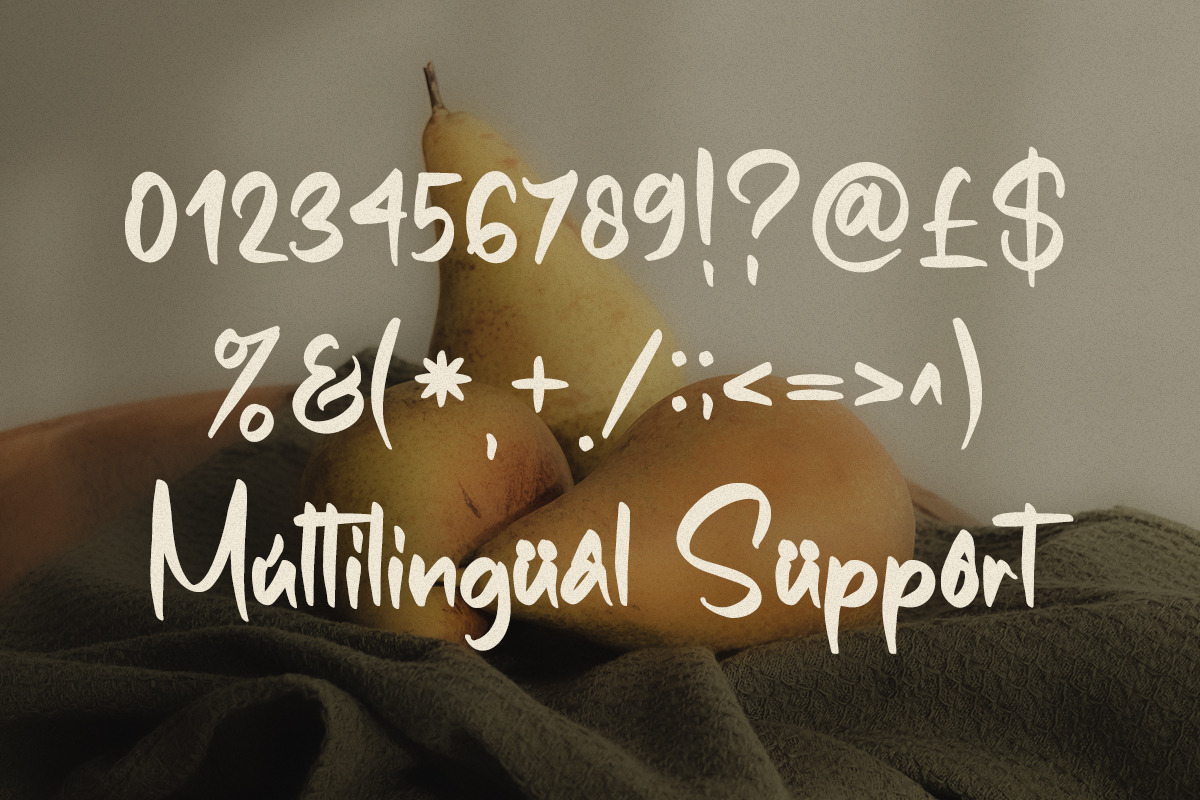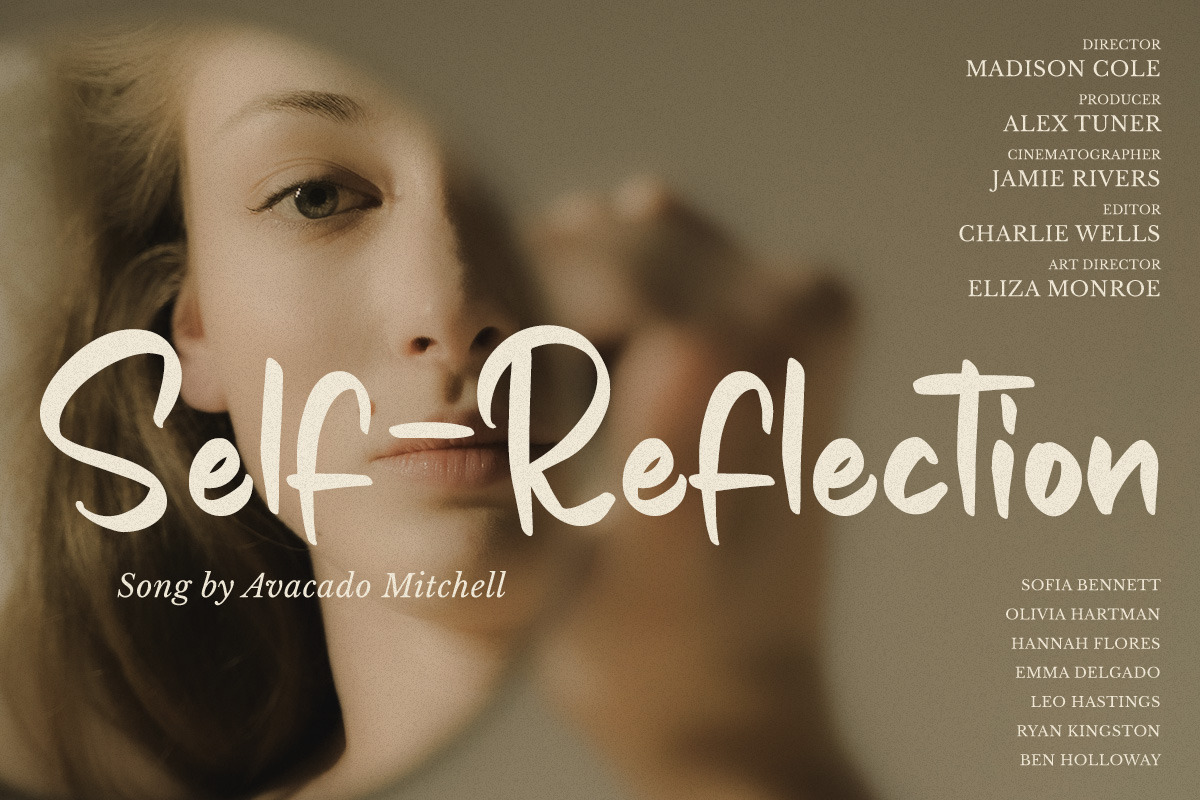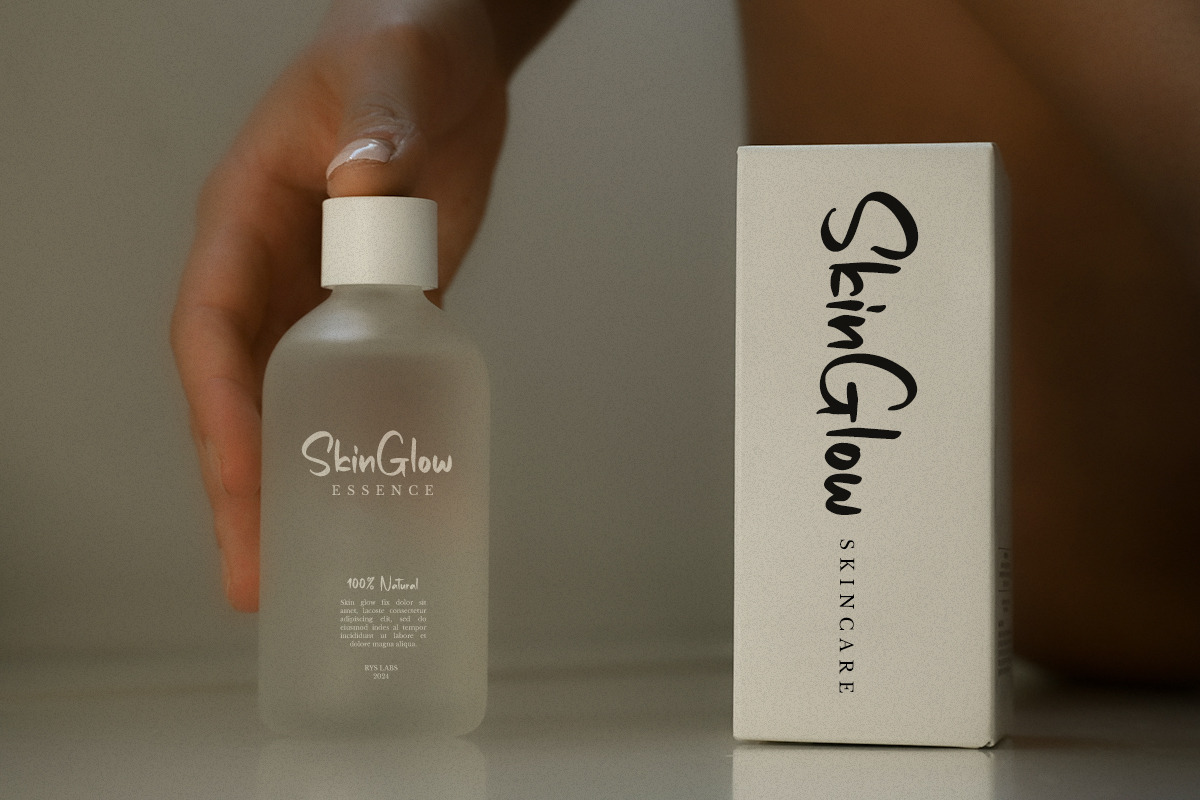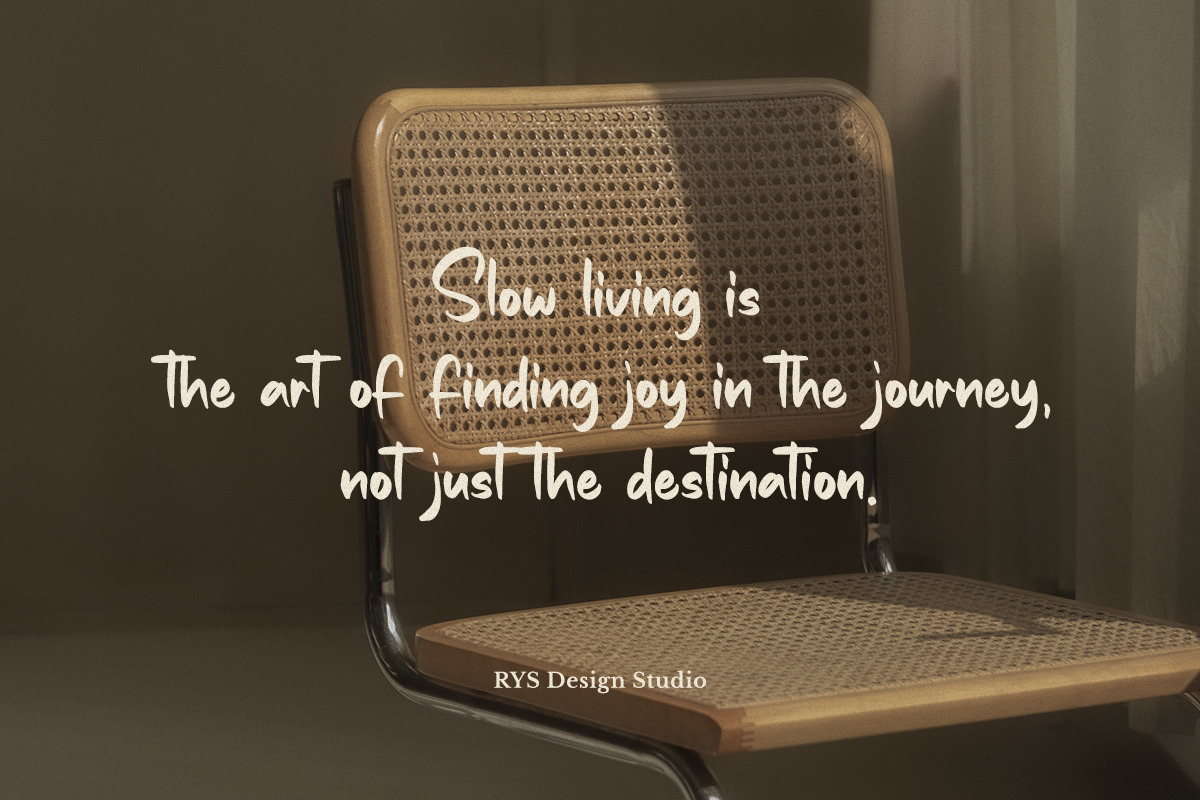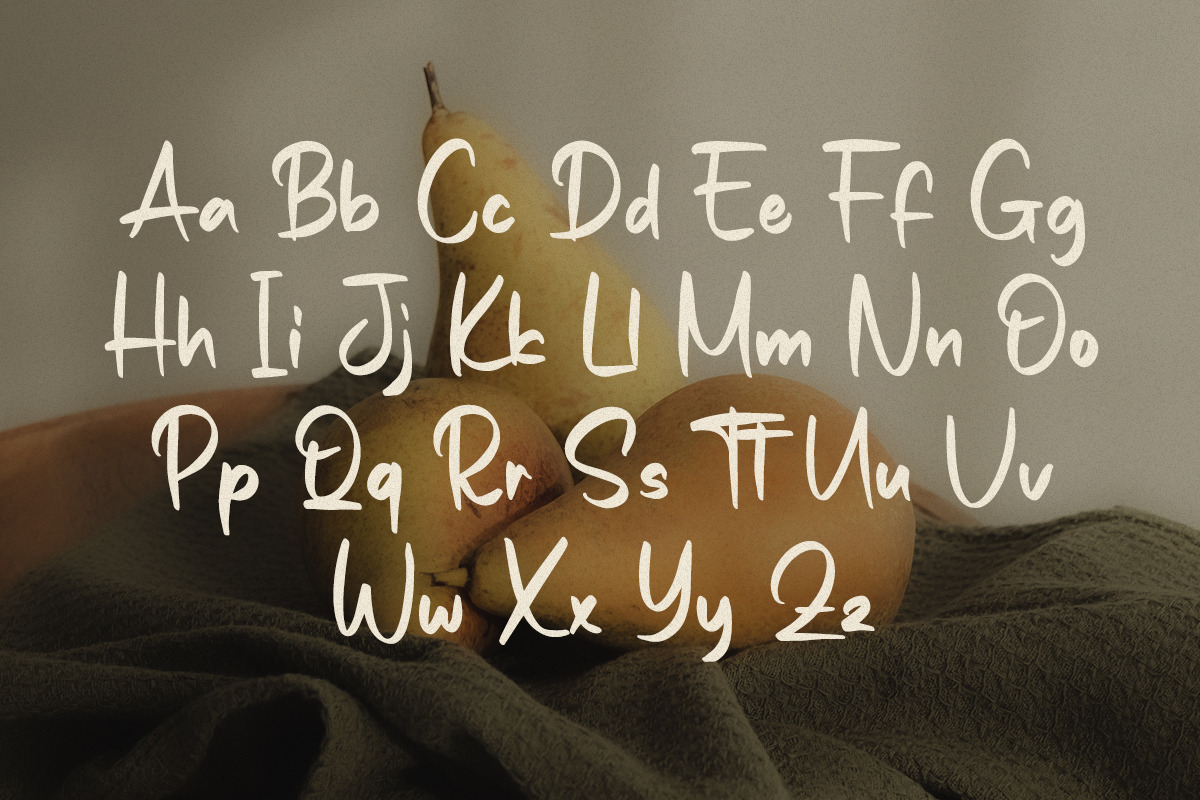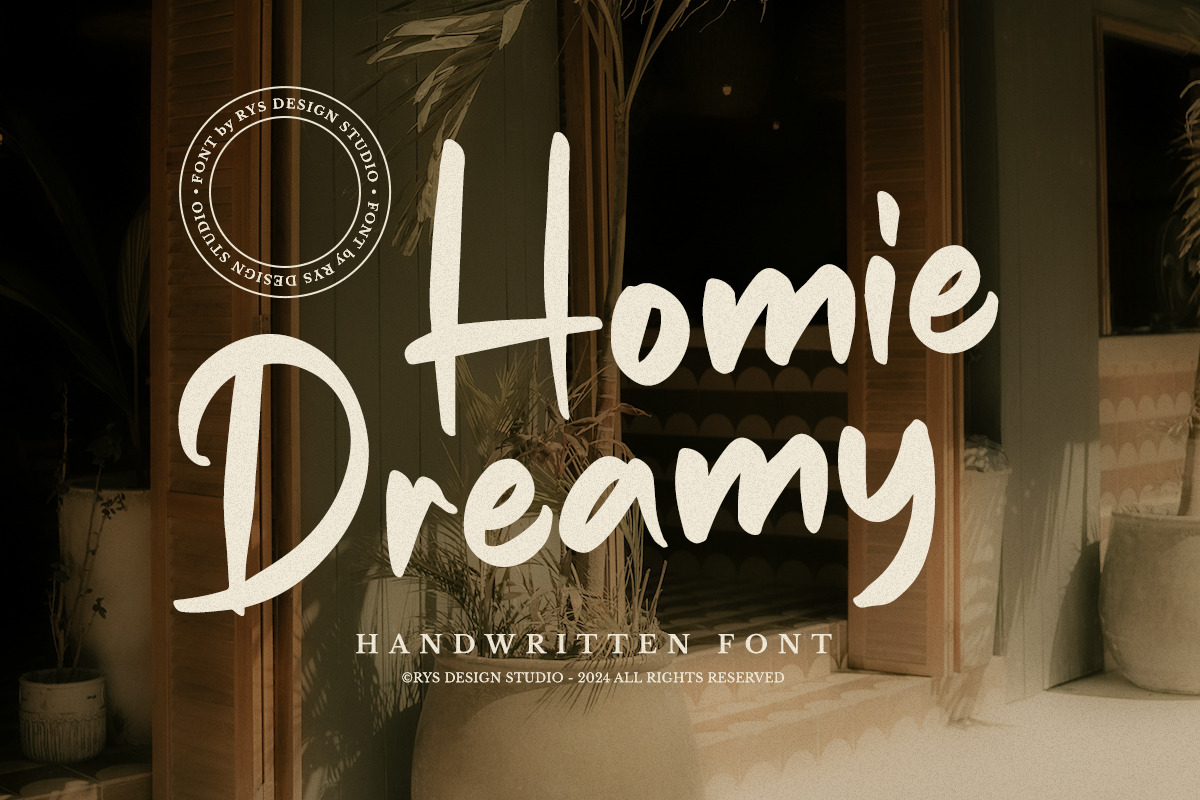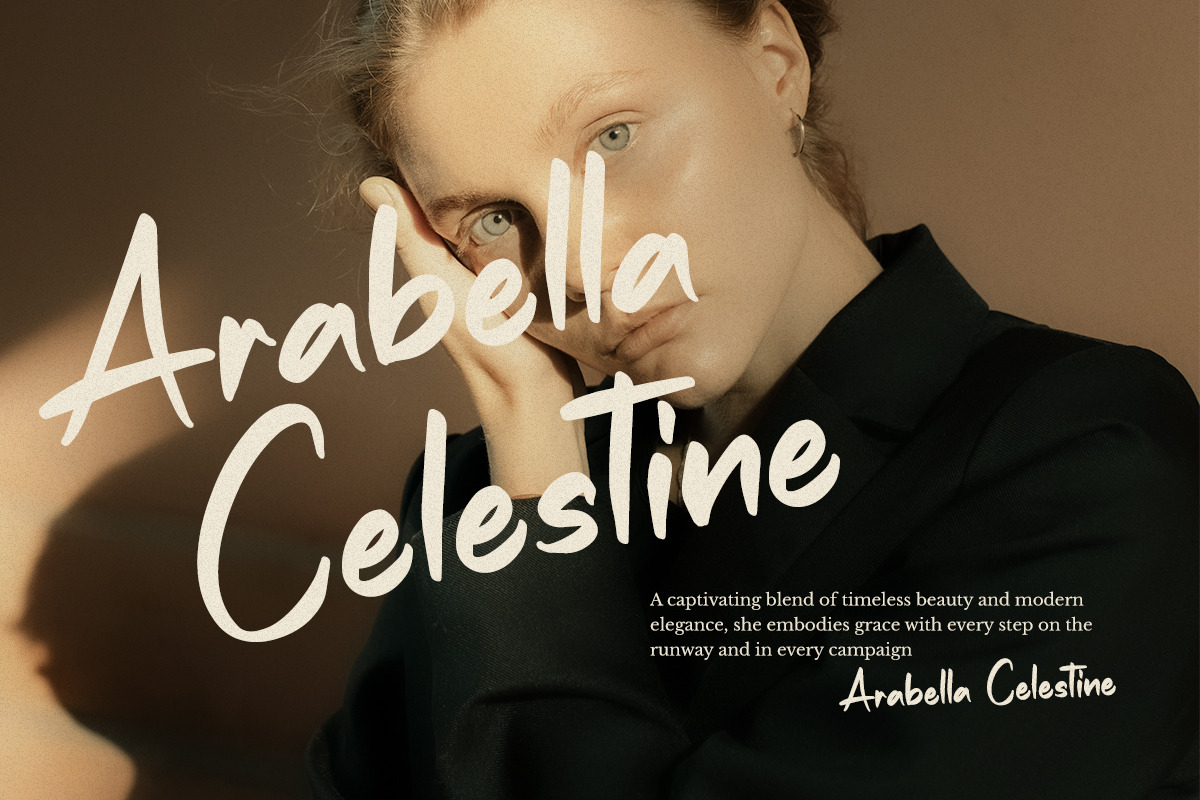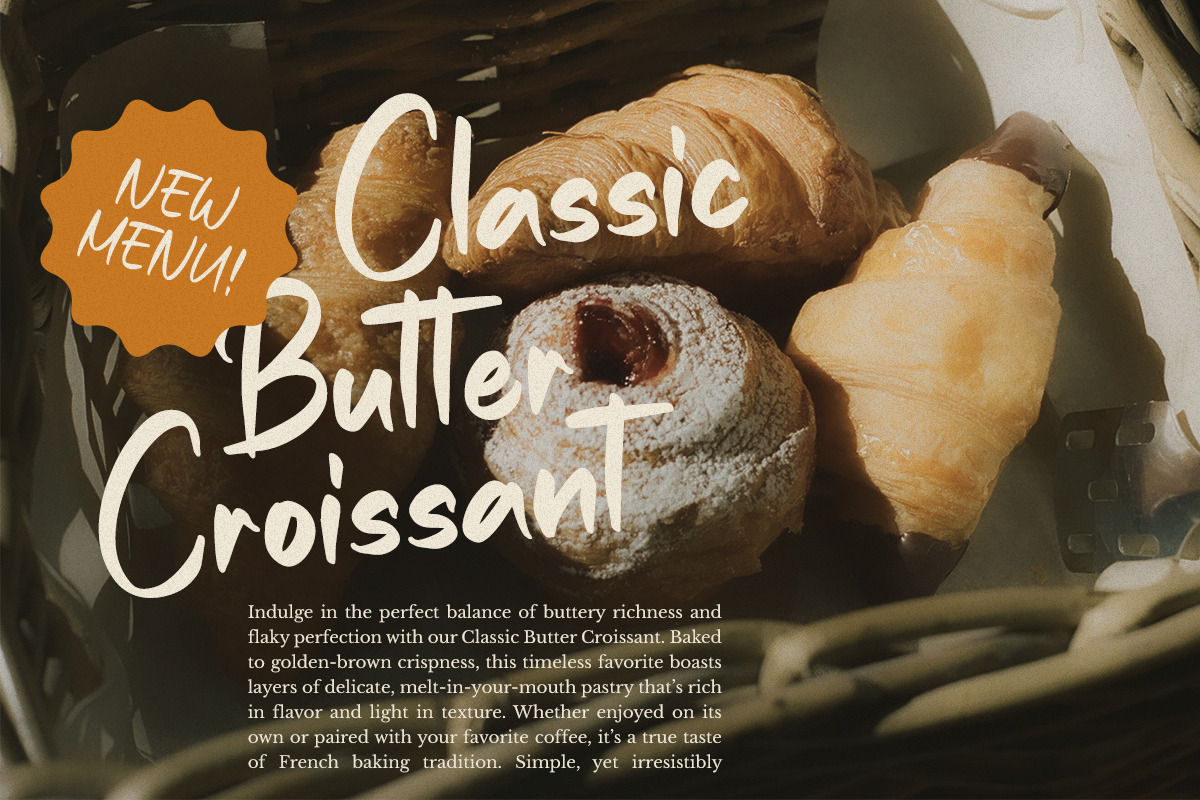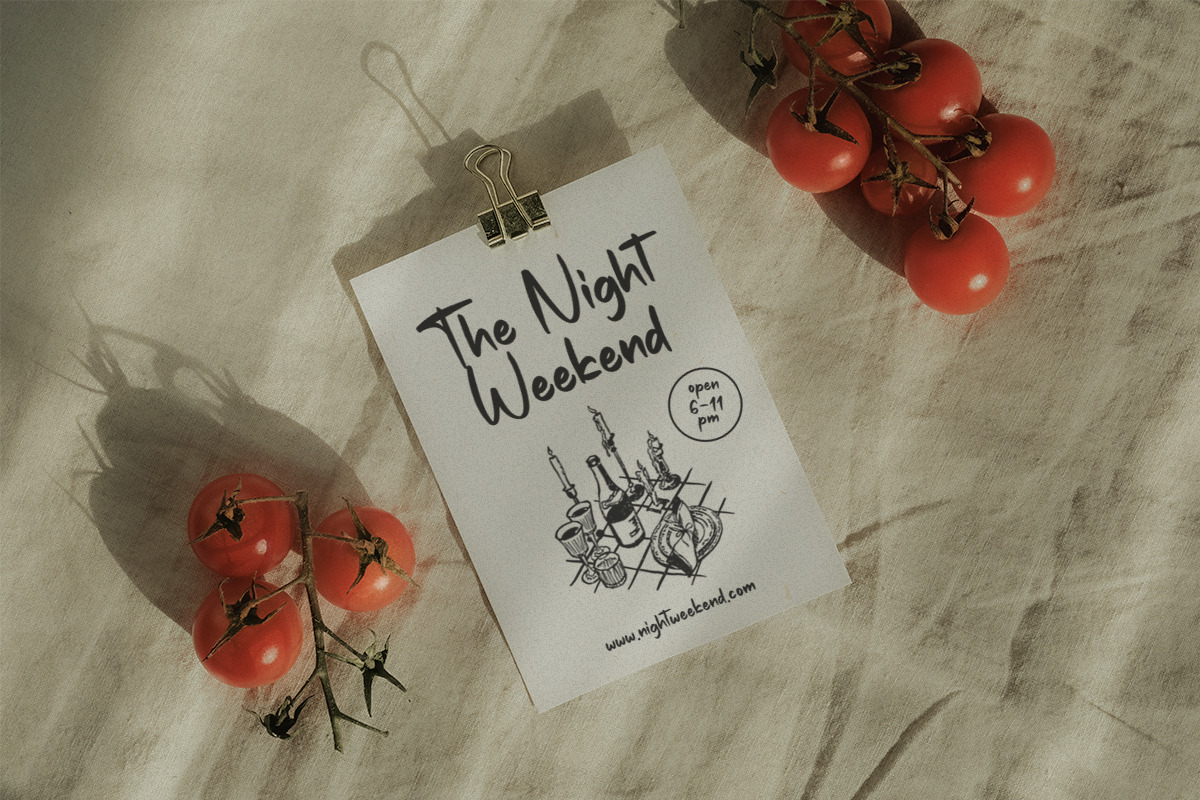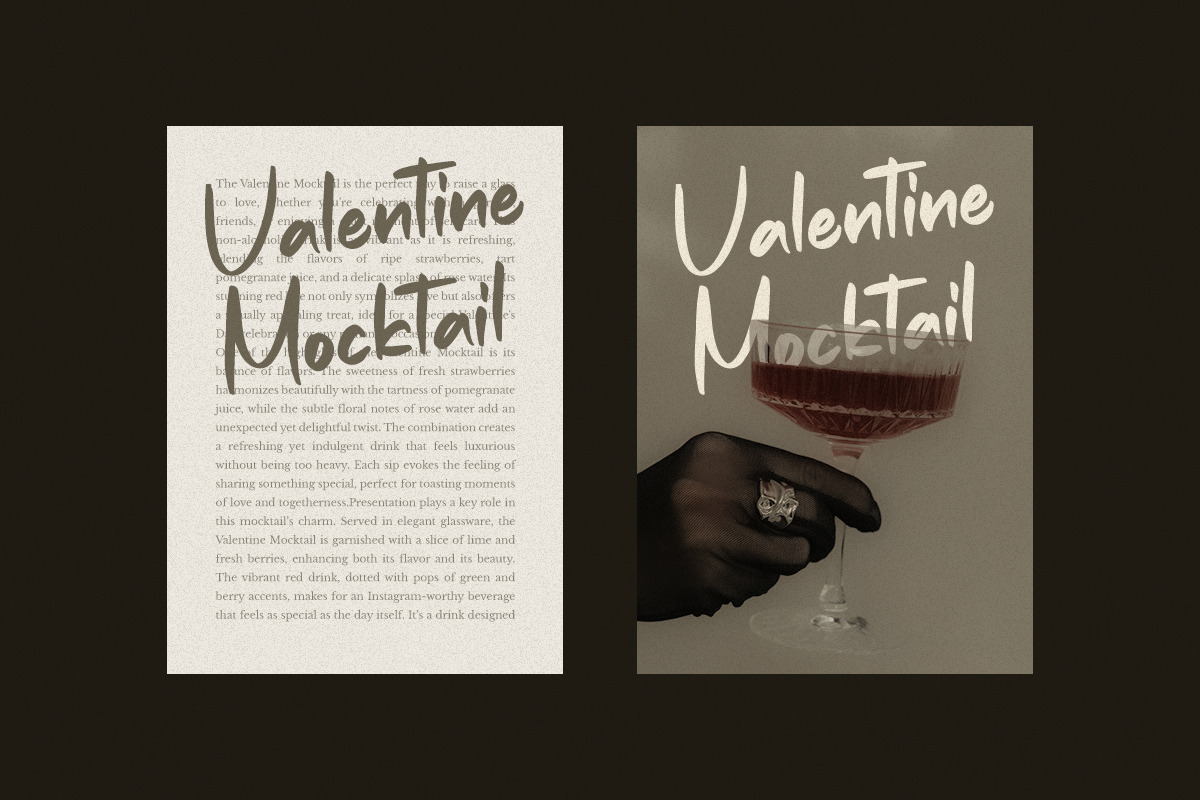
Homie Dreamy A Handwritten Font
Introducing RYS Homie Dreamy a handwritten font
Homie Dreamy is a charming handwritten font that brings a playful, authentic touch to your designs. This versatile font is perfect for a wide range of creative projects, from logos and branding to wedding invitations, merchandise, product packaging, and signatures. It’s also perfect for Valentine’s themes, menu designs, inspirational quotes, and skincare packaging. With its warm, friendly style, it’s an ideal choice for children’s books or any design that needs a personal, heartfelt feel.
Let Homie Dreamy add a bit of joy, romance, and personality to your next project!